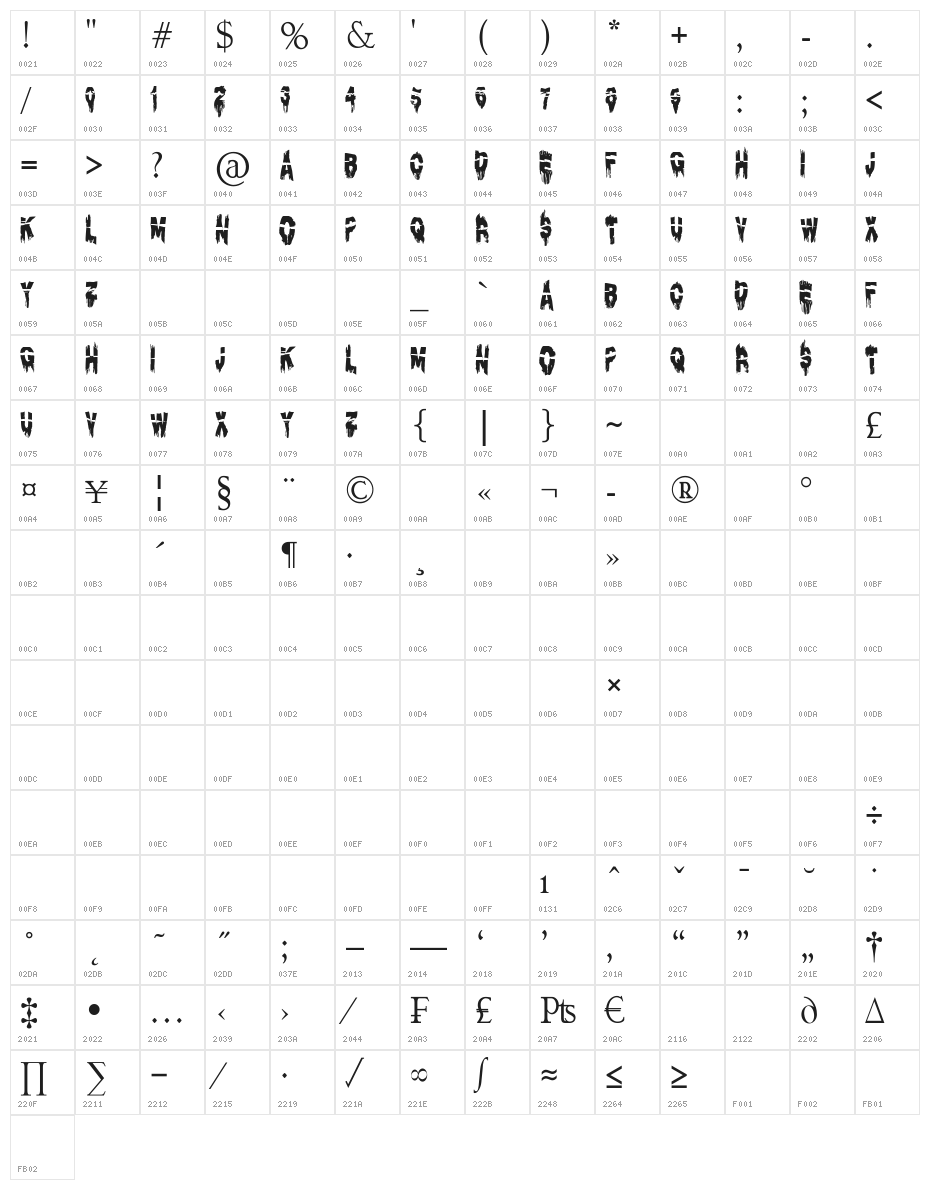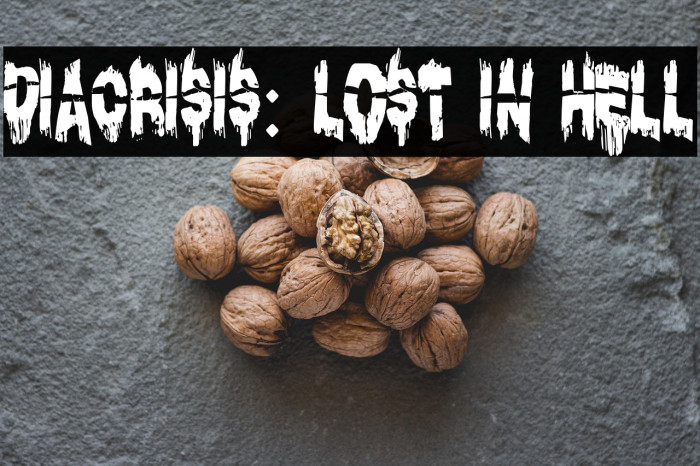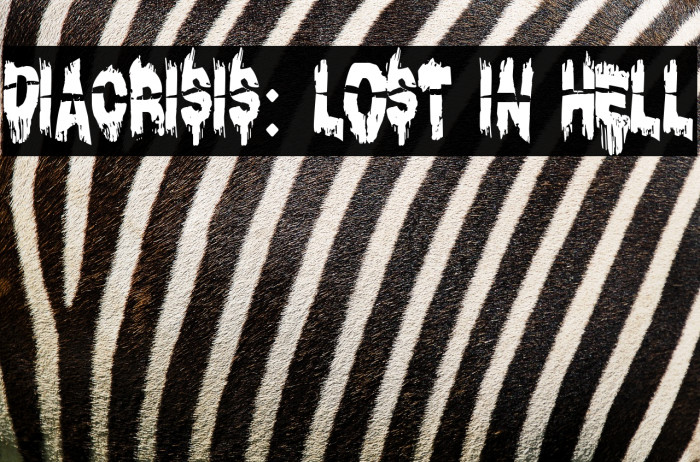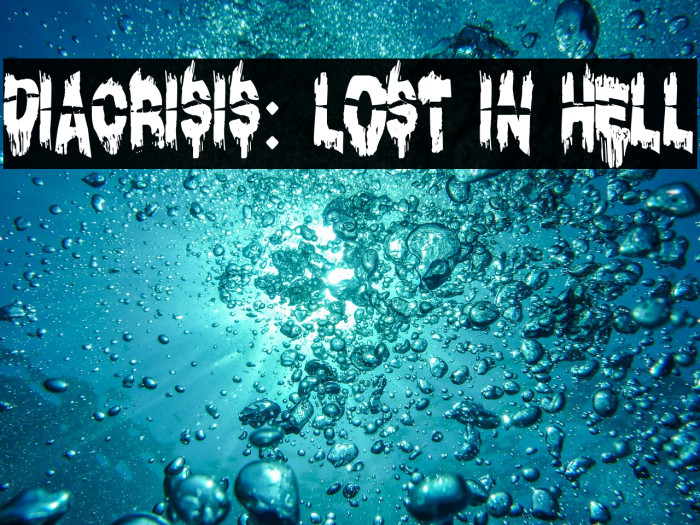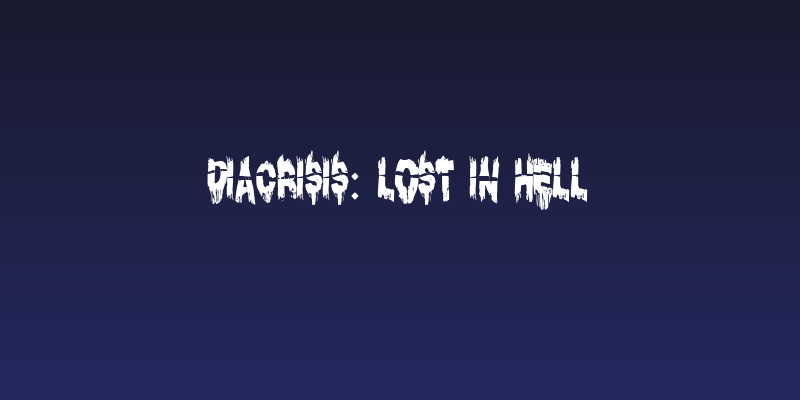
Diacrisis: Lost in Hell Font
Diacrisis: Lost in Hell Description
This font features a highly distressed and grungy aesthetic, with characters appearing as if they have been scratched or eroded. The bold, jagged edges and irregular shapes give it a chaotic and intense look, reminiscent of horror or thriller themes. The uppercase and lowercase letters maintain a consistent style, with numbers and special characters following the same distressed pattern. This font's unique appearance makes it stand out, ideal for creating a dramatic impact.
| Proposed Projects | Perfect for horror movie posters, Halloween event flyers, edgy album covers, and video game titles. |